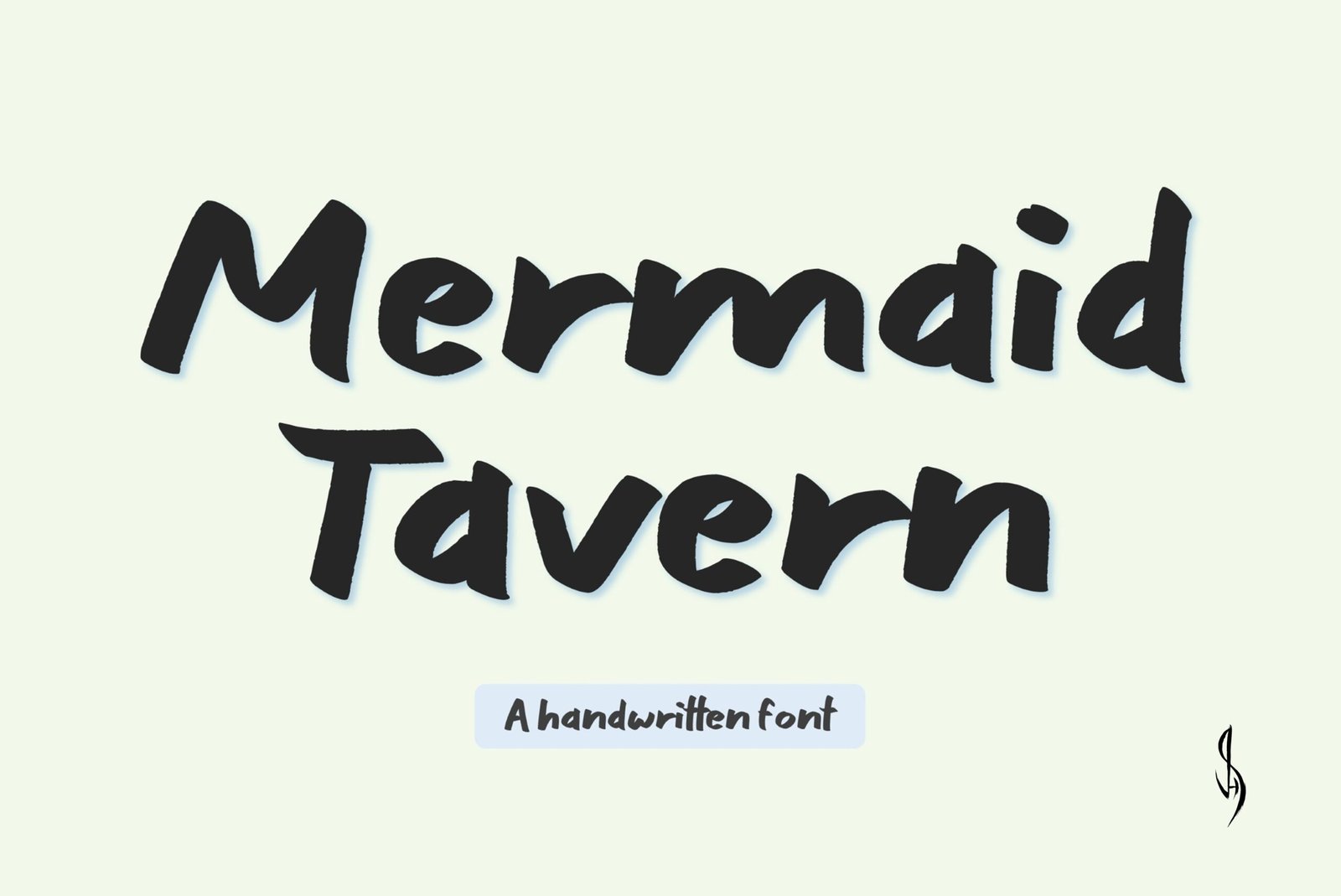
Mermaid Tavern Font
Handwritten font. “Mermaid Tavern”. Perfect for advertising and display purposes, including banners, book covers, shirts, posters, logos and much more!
Font includes all upper and lowercase letters, numbers, characters, punctuation and accent characters.